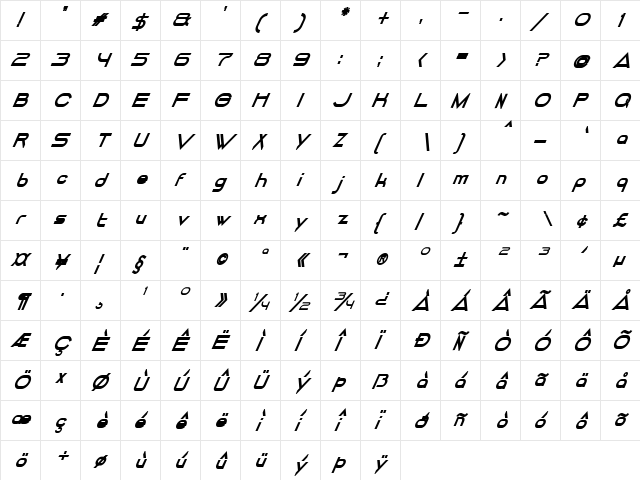
DANCING JUICE Bold Italic Font Preview
| Foundry | rimando nillo, jr. |
| Designer | dondon nillo |
Design Context for DANCING JUICE Typeface
DANCING JUICE offers clean, dependable letterforms without strong stylistic allegiance, making it a practical choice for designers who need flexibility. Its italic angle brings a sense of urgency and motion to the letterforms. The heavy weight commands attention and anchors typographic hierarchies.
Pro Tip: Try DANCING JUICE for annotation and caption copy alongside an upright companion — the contrast in angle creates a dynamic but ordered typographic system.